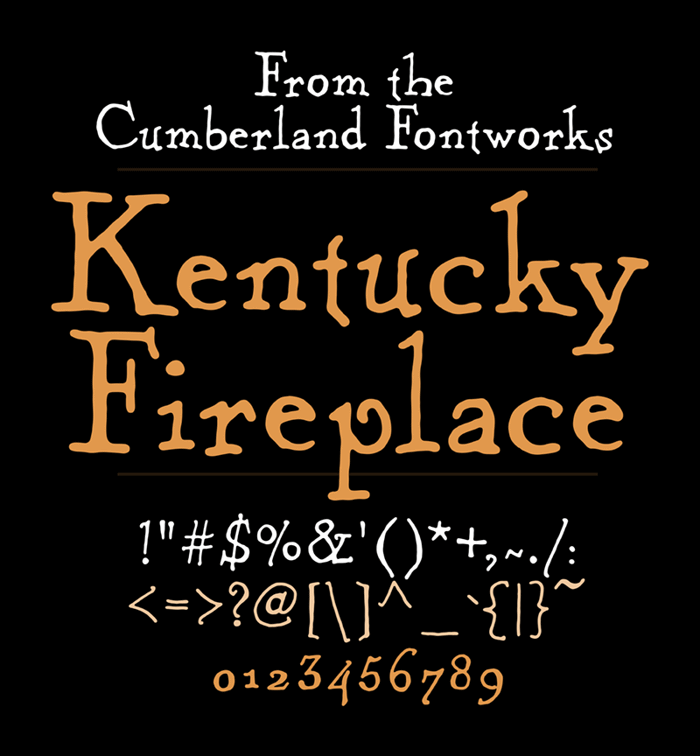
Kentucky Fireplace Font
About Kentucky Fireplace Font
More info from Cumberland Fontworks
As with many of my hand-drawn fonts, KENTUCKY FIREPLACE was born for fantasy cartography, while mapping the world of Uresia: Grave of Heaven (look for it if you enjoy fantasy worlds!), but I named it for Kentucky because it was a mellow evening with some bourbon involved.